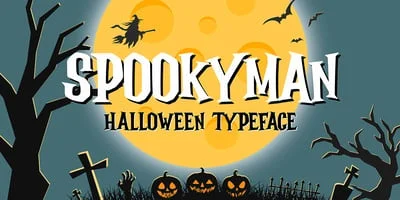
Spookyman Font
The Spookyman Font is a wonderfully eerie and whimsical display typeface, specifically designed to capture the fun, playful side of Halloween and supernatural themes. Imagine its ghostly characters gracing cheerful trick-or-treat bags, adding a delightfully creepy touch to haunted house invitations, or creating captivating titles for family-friendly horror movies and spooky animated shorts. Its often distorted, slightly wobbly, or textured forms also make it an excellent choice for unique Halloween party decorations, festive product packaging for seasonal treats, quirky social media graphics, and any design where a lighthearted, imaginative, and spooky feel is desired. Whether you're aiming for a classic, goofy monster look or a modern, enchanting Halloween aesthetic, Spookyman Font delivers with its undeniable charm, ensuring your visuals are both inviting and truly memorable.
What makes Spookyman Font so exciting is its ability to instantly infuse designs with the playful spirit of Halloween and a touch of magical mischief. In a visual landscape where evoking emotion is key, this font offers a refreshing dive into festive delight and eerie wonder. It conjures images of grinning pumpkins, friendly ghosts, and candy-filled nights. It’s more than just a typeface; it’s a design element that can instantly set a celebratory, inviting, and magical tone for a project, making content feel more relatable and emotionally resonant. Designers will find it an invaluable asset for creating visuals that truly connect with an audience seeking the comfort and happiness of Halloween fun.
The Spookyman Font family is typically structured to offer a range of styles that enhance its festive and whimsical appeal. Beyond the primary Spookyman Regular typeface (which might feature a charming, "ghostly" or "creepy-crawly" quality), you might find companion styles such as a slightly bolder Spookyman Bold for stronger emphasis, or perhaps Spookyman Outline or Spookyman Shadow versions that add different visual textures and dimensions, enhancing the spooky effect. Given its decorative nature, the family may also include unique ligatures or festive dingbats (like bats, spiders, or pumpkins) that perfectly complement its overall character, allowing for even greater customization and holiday cheer. These diverse family members provide designers with the flexibility to craft engaging typographic compositions, ensuring visual consistency and maximum creative expression from prominent titles to smaller decorative elements, all while maintaining the font’s inherent charm.
For projects demanding a festive, charming, and wonderfully magical feel, consider the delightful Spookyman Font. It's an excellent choice to infuse your designs with the spirit of Halloween!